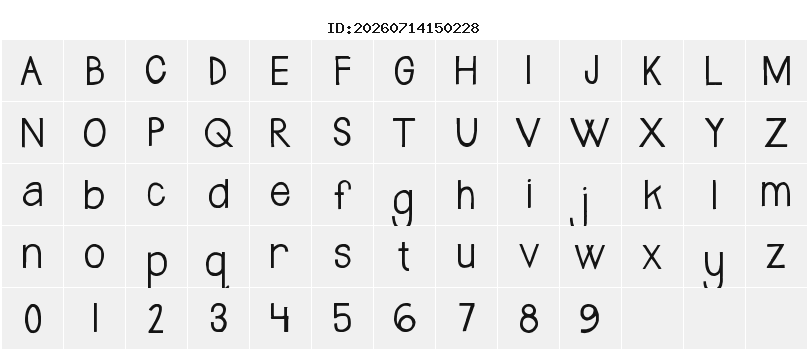
Janda Safe and Sound Solid Preview
• Font Name: Janda Safe and Sound Solid
• Font ID: KimberlyGeswein: Janda Safe and Sound Solid: 2013
• Full Font Name: Janda Safe and Sound Solid
• Version: Version 1.003 2013
• PostScript Name: JandaSafeandSoundSolid
• Character Count: 323
• Designer: Kimberly Geswein
• Manufacturer: Kimberly Geswein
• Description: Copyright (c) 2012 by . All rights reserved.
About Janda Safe and Sound Solid.ttf
Janda Safe and Sound Solid.ttf is a modern, elegant sans-serif font designed for ultimate readability and visual harmony. Perfect for branding, headlines, web design, and print materials.